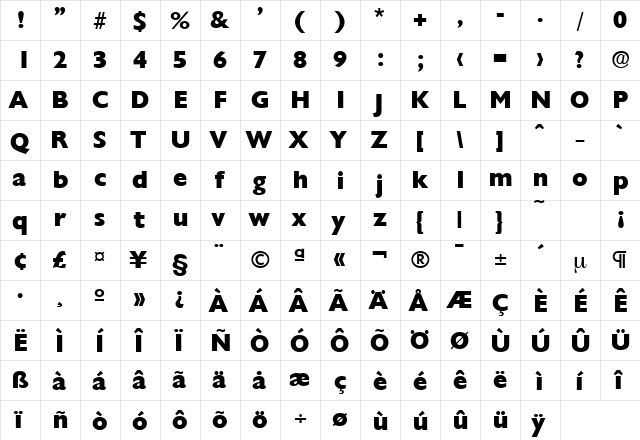
Chantilly-Serial-ExtraBold Regular
Design Context for Chantilly-Serial-ExtraBold Typeface
Chantilly-Serial-ExtraBold is a composed and adaptable typeface that performs quietly and consistently across a wide range of design contexts. Its bold stroke weight gives it real presence on the page.